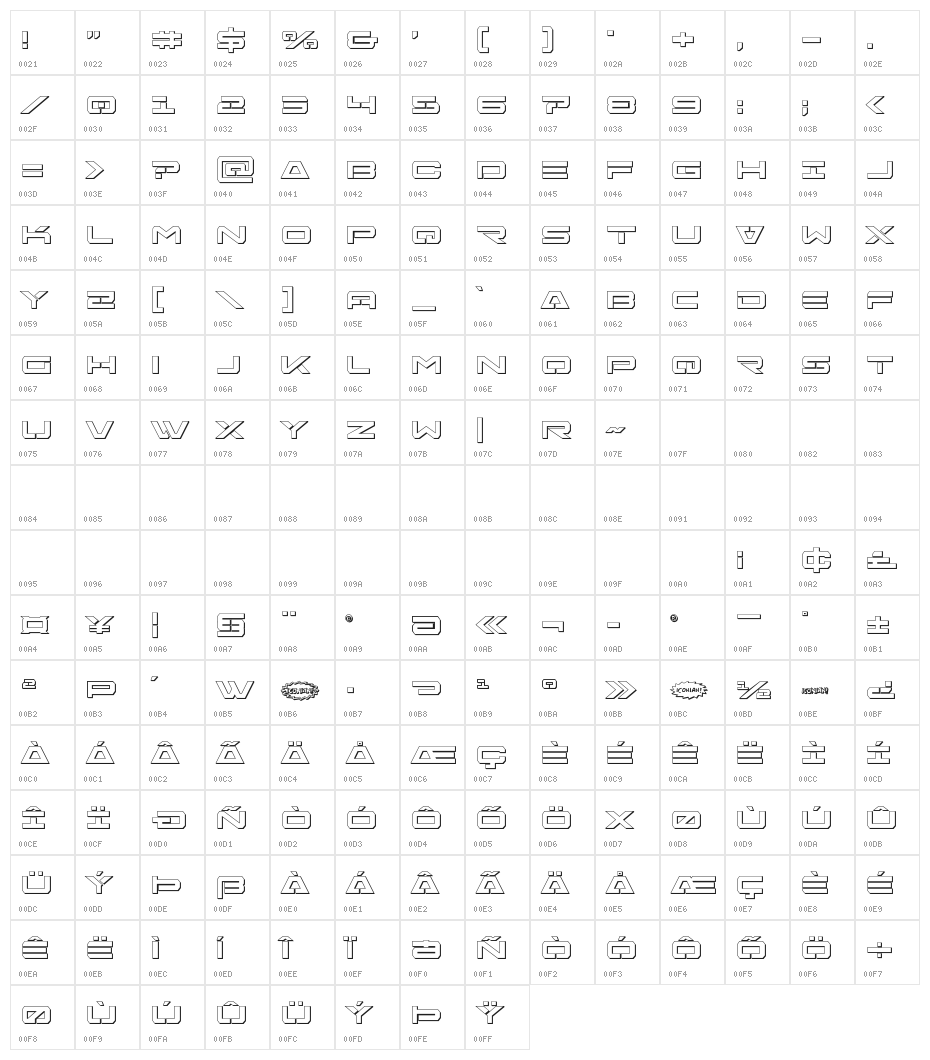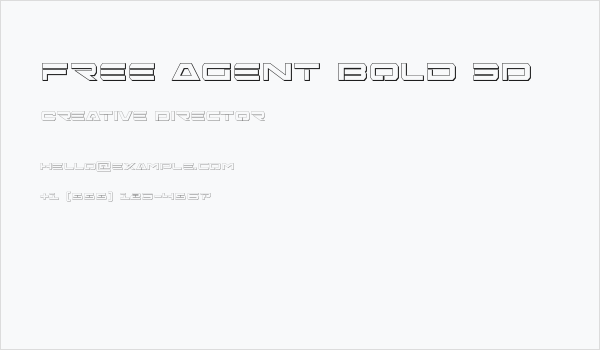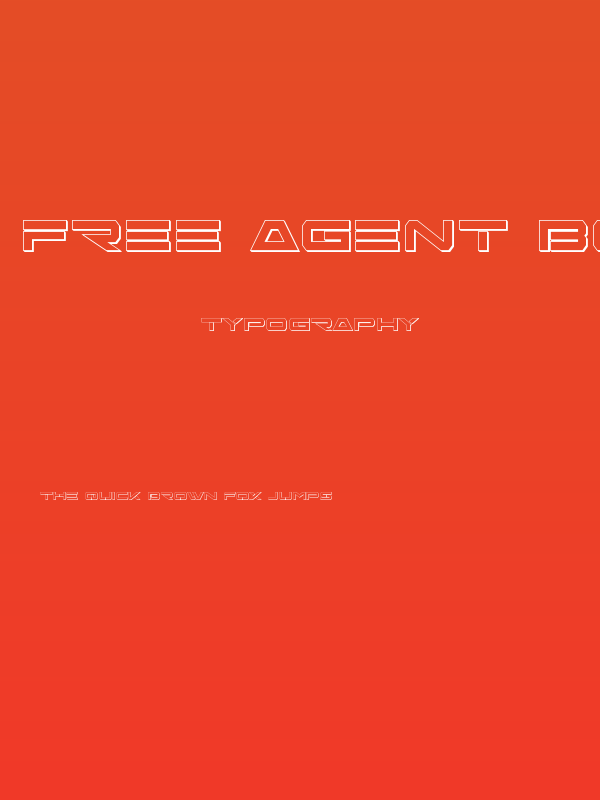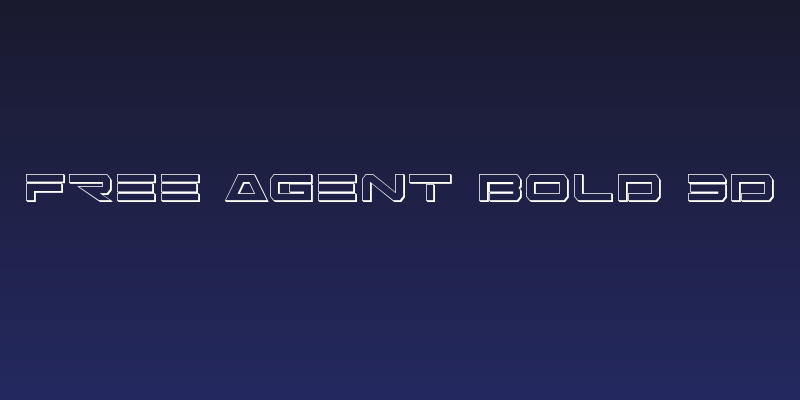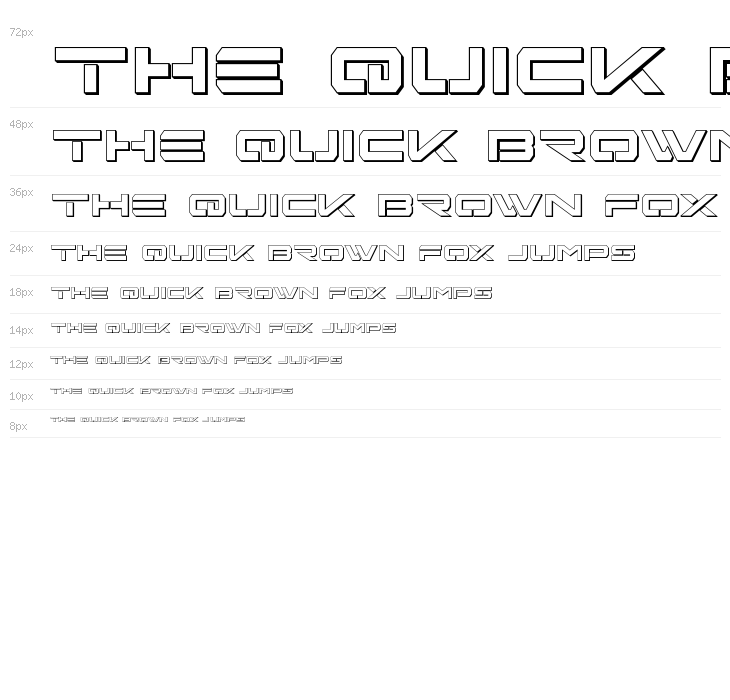
Free Agent Bold 3D Font
Free Agent Bold 3D Description
This font features a bold, three-dimensional style with a futuristic and geometric appearance. The characters are outlined, giving them a hollow look that enhances the 3D effect. Each letter is constructed with sharp angles and clean lines, creating a sense of precision and modernity. The uppercase and lowercase letters maintain a consistent design, while the numbers and special characters complement the overall aesthetic. The font's unique style makes it stand out, suitable for projects that require a strong visual impact.
| Proposed Projects | Ideal for branding, posters, video game graphics, and sci-fi themed designs. |